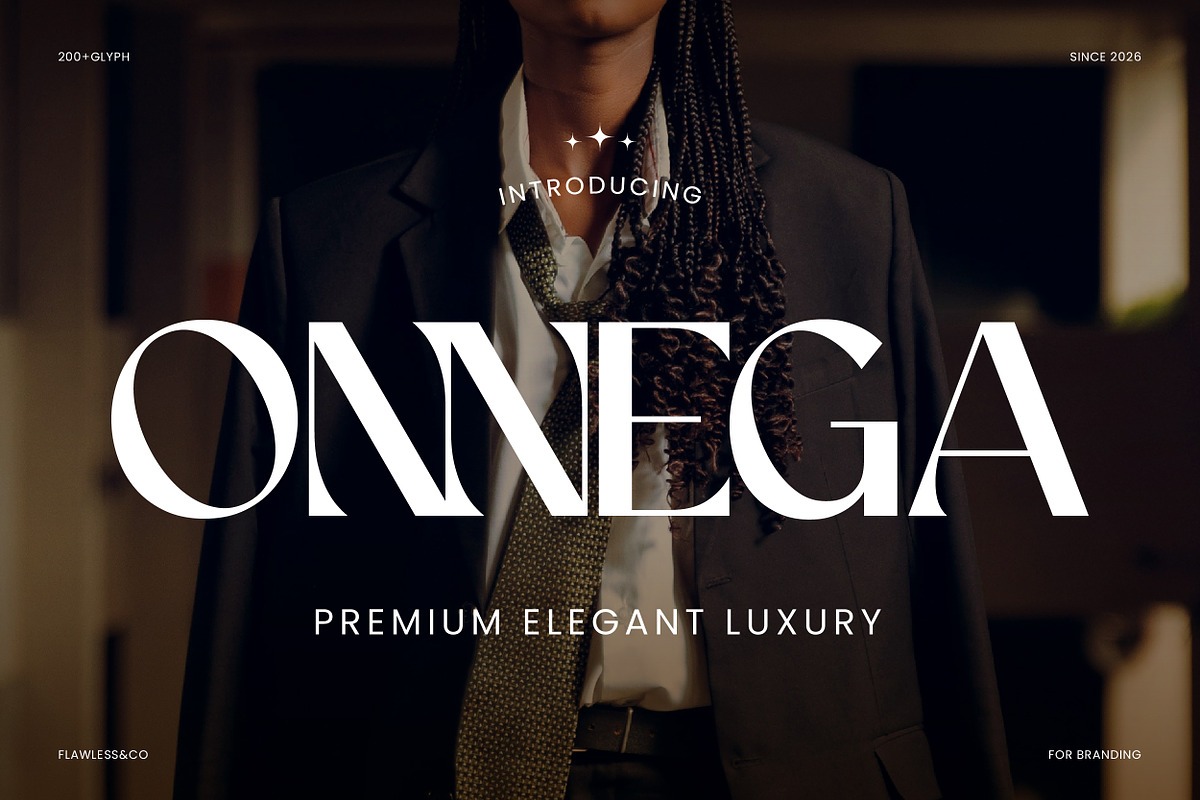
Onnega – Modern Elegant Serif Font
Onnega – Modern Elegant Serif Font is a flexible and reliable font created to fit multiple design needs, from branding and packaging to social media and editorial layouts. Onnega is a refined serif typeface that captures the essence of luxury through clean structure and elegant detail. Designed with balanced proportions, subtle curves, and high-contrast strokes, Onnega creates a graceful yet confident visual tone. Its timeless character blends classic sophistication with a modern edge, making it ideal for designs that seek exclusivity without feeling excessive. Every letter is crafted to deliver clarity, style, and a premium feel across any composition.